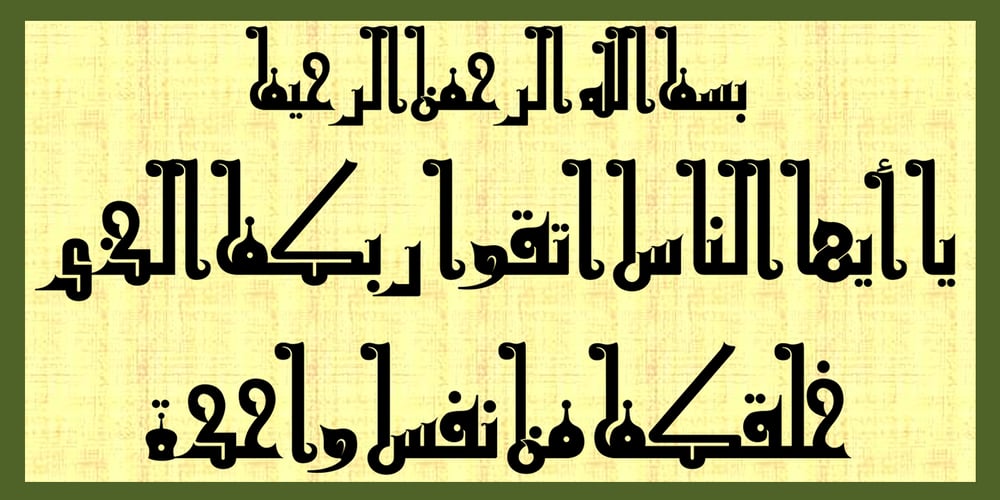
Jazayeri Kufic Shoushtar Font Family was designed by S.M.V. Mousavi Jazayeri and published by Arabetics. Jazayeri Kufic Shoushtar contains 1 styles and family package options. The Jazayeri Kufic Shoushtar font is a beautiful typographic implementation of the decorative Kufic calligraphy inscribed on the walls of the historic Grand Mosque of Shoushtar in southwestern Iran. This mosque contains many other inscriptions added over time for documentary purposes but its four monumental Kufic inscriptions which are revived in this font are the most essential ones to understand its design and meaning. Built in the ninth century CE, this mosque is one of the earliest hypostyle mosques in Iran. It was built in “the city of scholars” when its residents included two great Sufis, Sahl Ibn Abdullah Tostari and Mansur Hallaj. The designer and producer of the font is Seyed Mohammad Vahid Mousavi Jazayeri, a well-known Iranian master calligrapher, designer, scholar, and author. Mousavi Jazayeri has taken a personal interest in the Kufic script and devoted years to independent research, visiting archaeological locations, historic buildings and cemeteries, mosques, libraries and museums to study the script through direct contact. He has developed a systematic research methodology and published his findings in several books. His professional interest in script and calligraphy stimulated his discovery of the historic method for cutting the Kufic pen, which has had a direct impact on his own work, as seen in several well-received exhibitions and workshops. The historical research and achievements of Mousavi Jazayeri brought together the first international group dedicated to the study and revival of the historic Kufic script operation through kuficpedia.com.